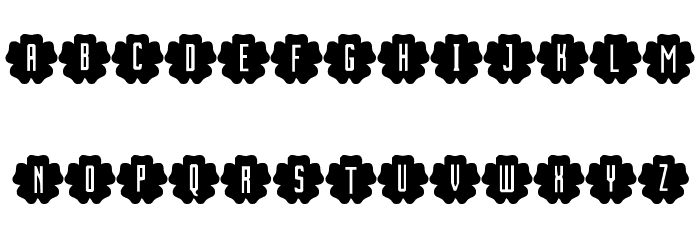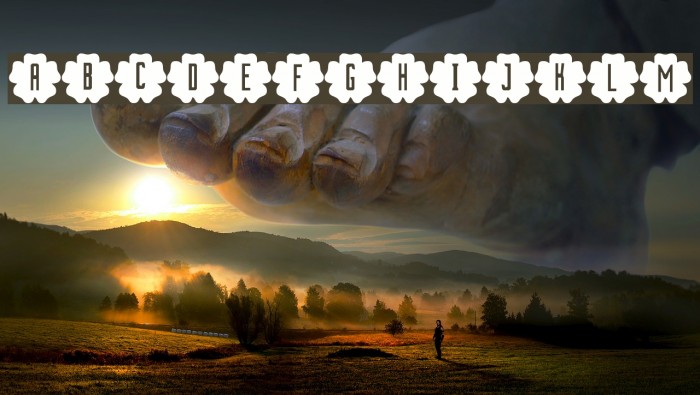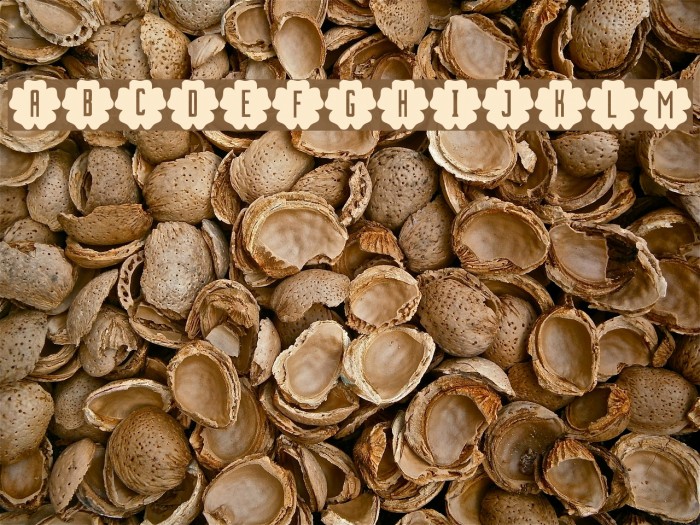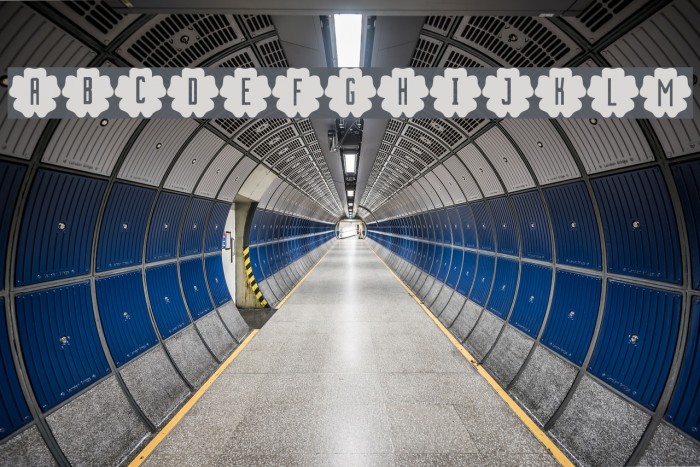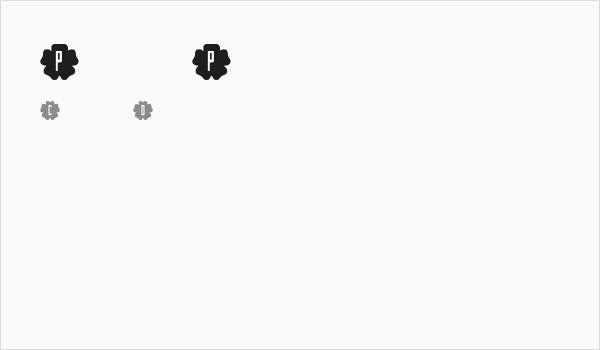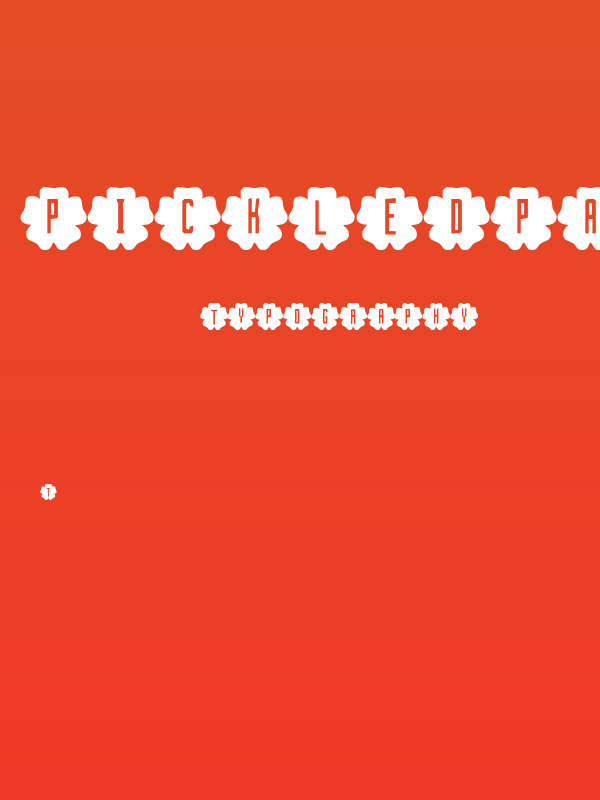
PickledPansies Font
PickledPansies Description
This font is a bold, decorative style with a unique floral motif surrounding each character. The letters are uppercase and have a strong, geometric form that is both eye-catching and distinctive. Each character is encased in a flower-like shape, adding a playful and ornamental touch to the overall design. The font's boldness and decorative elements make it suitable for projects that require a strong visual impact. The spacing between characters is tight, creating a cohesive and compact appearance. The high contrast between the thick strokes of the letters and the intricate floral outlines enhances its decorative appeal.